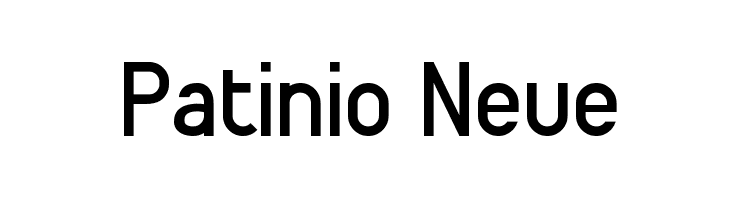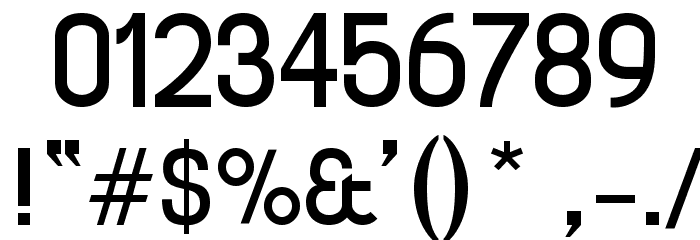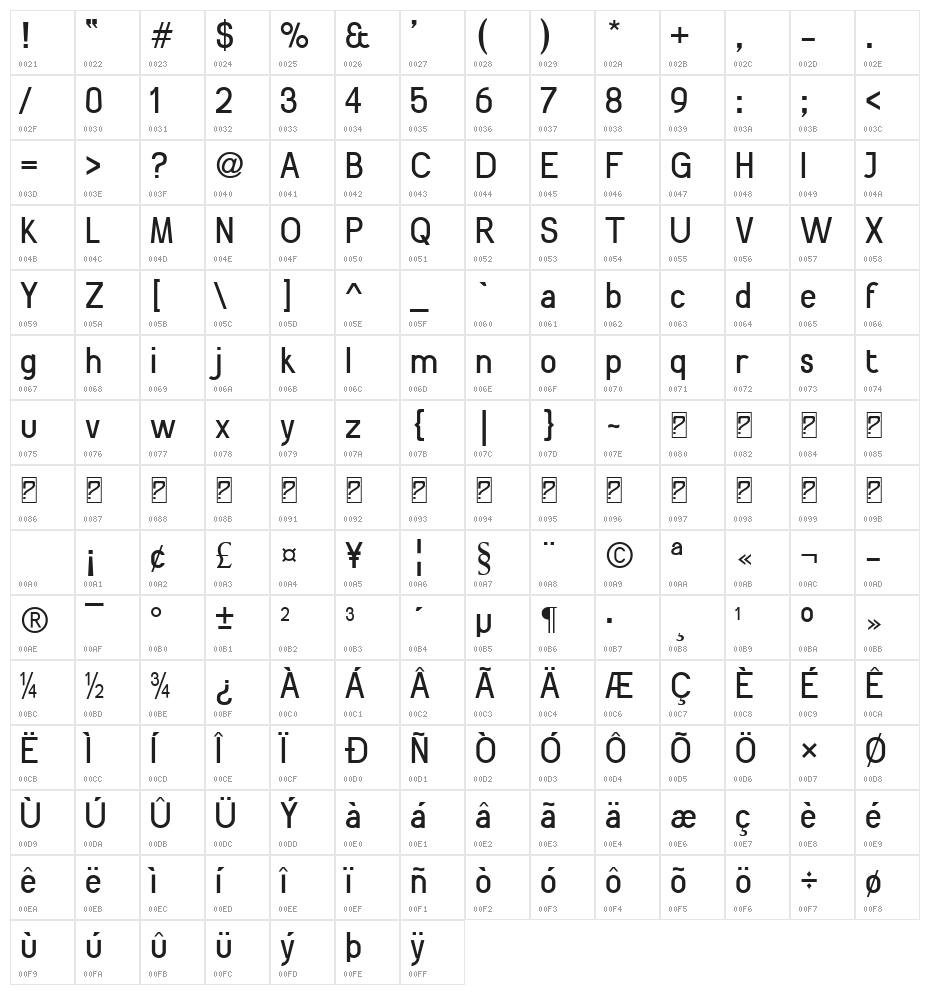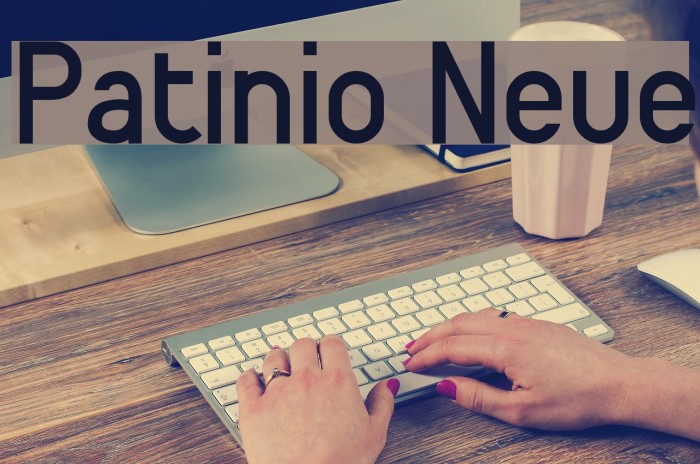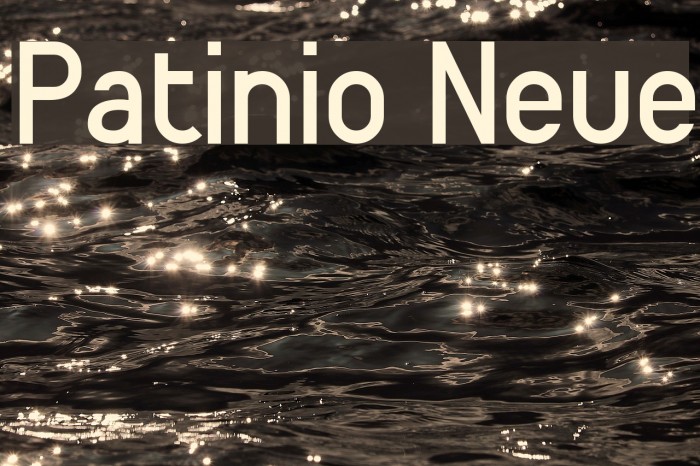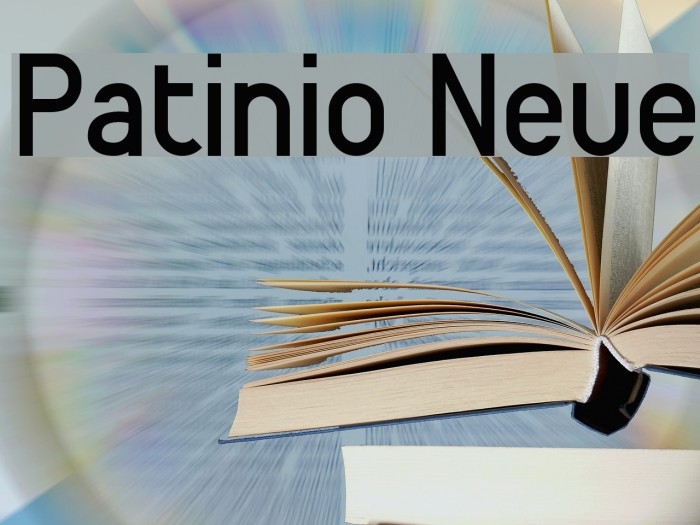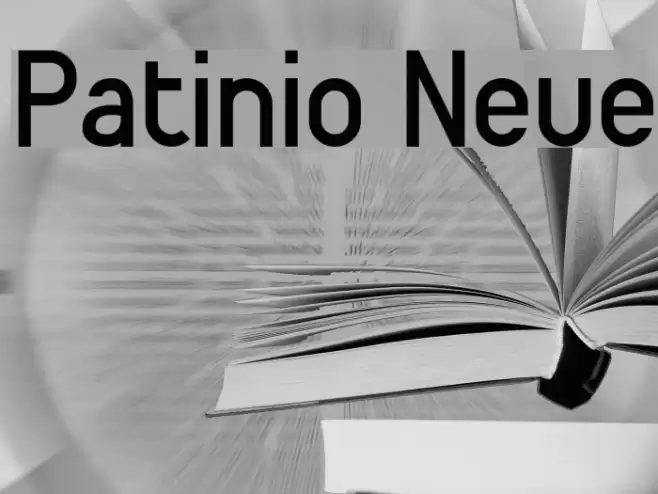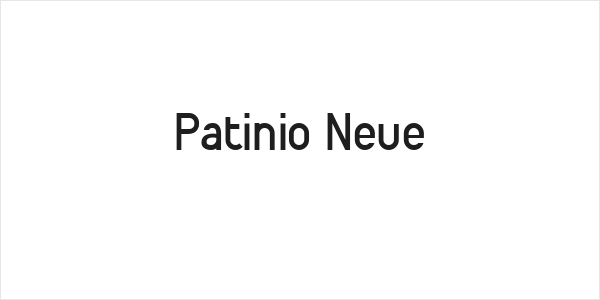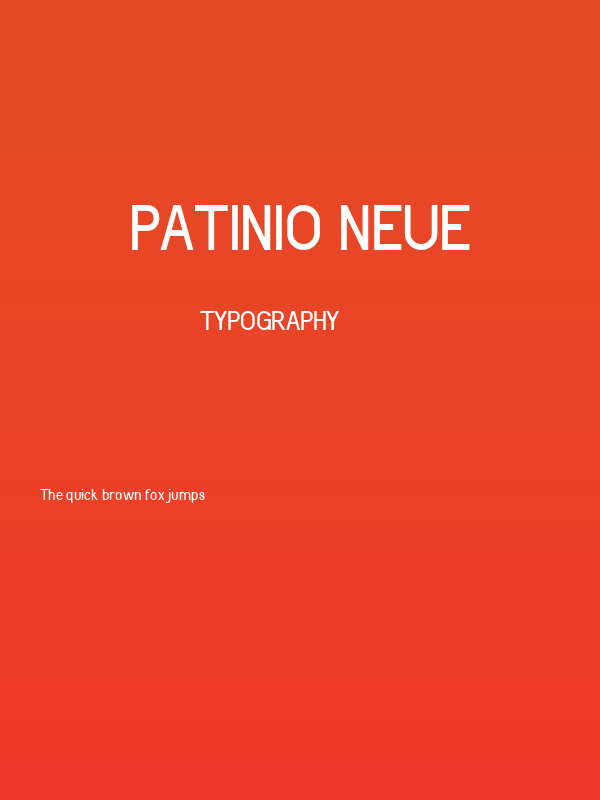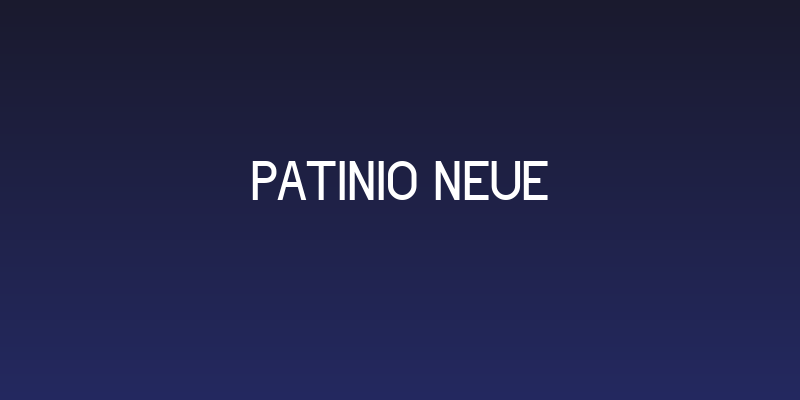
Patinio Neue Font
Patinio Neue Description
This font features a clean and modern sans-serif design with a focus on readability and versatility. The characters are uniformly structured, offering a balanced and harmonious appearance. The uppercase letters are bold and assertive, while the lowercase letters maintain a consistent flow, enhancing legibility. The numerals are straightforward and align well with the overall geometric style. Special characters are clearly defined, making this font suitable for a wide range of applications. Its simplicity and clarity make it ideal for both digital and print media.
| Proposed Projects | Ideal for branding, web design, corporate materials, and editorial layouts. |